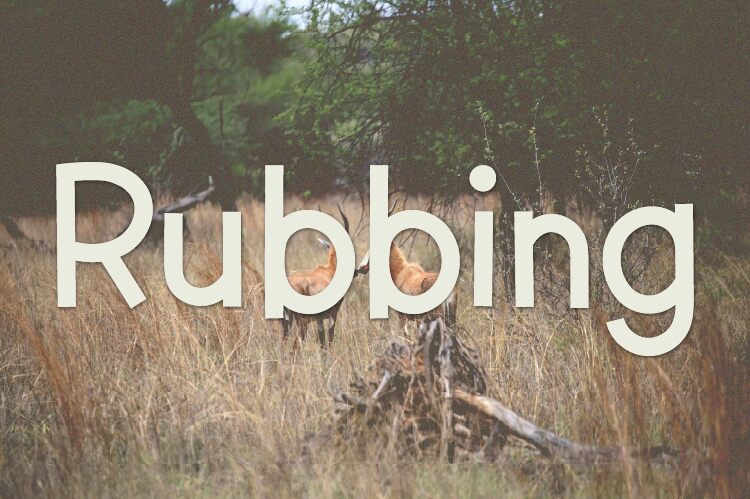
Rubbing font family by Hanna Bie is a fancy free font with a modern minimalist tone. Its calm and straightforward appearance make it a stylish option for readers of all ages. The clean and neutral design will particularly appeal to contemporary applications that call for an updated digital presence. The simple touch however doesn’t stop it from having a strong character presence, especially if used with textured color backgrounds.
Applications that require maintaining a balanced perception between cool and playful would benefit from the use of Rubbing. Food stores, fashion outlets, health and wellbeing applications, and skincare branding are a few possible ideas to consider. Feel free to also consider it for digital content including websites, mobile applications, PDFs, and others.
Also, use it for product packaging, advertising, clothing prints, and merch.